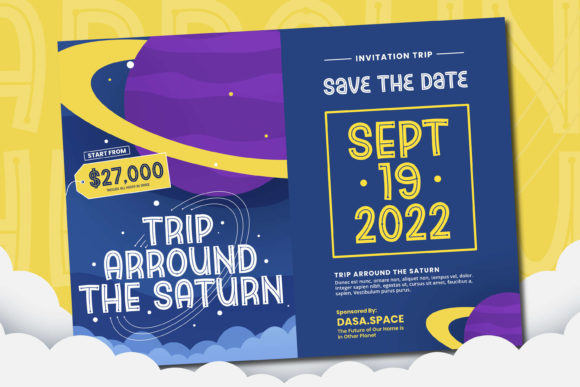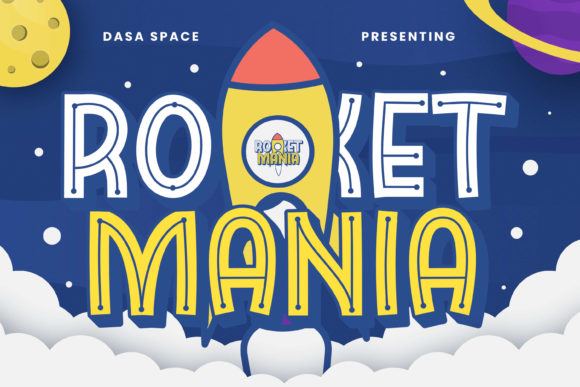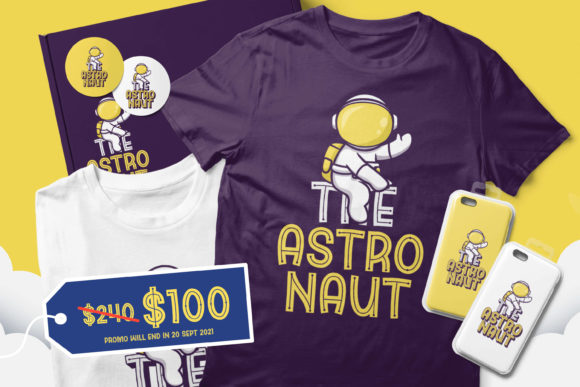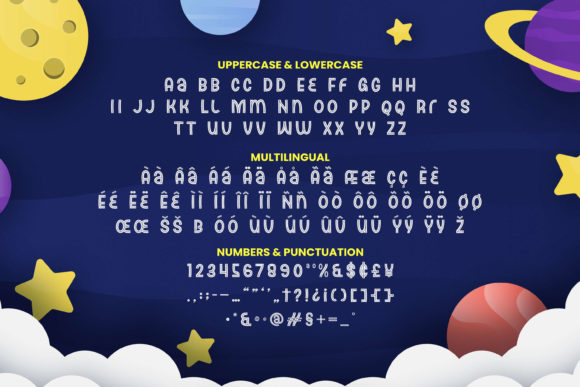
Introducing Apolo Font: The Playful and Creative Display Font for Unique Design Projects
Are you tired of using the same old fonts for your design projects? Look no further than Apolo Font, a playful and creative display font that’s perfect for adding a touch of personality to your work. Whether you’re designing a book cover, creating a game, or crafting a science-related magazine, Apolo Font is the ideal choice.
What Makes Apolo Font So Special?
Apolo Font is a unique and eye-catching display font that’s sure to make your design projects stand out. Its playful and creative vibe makes it perfect for a wide range of applications, from book covers and games to product packaging and magazines. The font’s versatility is due in part to its clean and modern design, which ensures that it looks great in a variety of contexts.
So, what types of design projects is Apolo Font perfect for? The answer is: many! Here are just a few ideas to get you started:
- Book Covers: Apolo Font is a great choice for book covers, particularly for fiction and children’s books. Its playful and creative vibe helps to capture the reader’s attention and sets the tone for the story.
- Games: If you’re designing a game, Apolo Font is a great choice for titles, headings, and other UI elements. Its modern and clean design ensures that it looks great on a variety of devices.
- Science-Related Magazines: Apolo Font is also perfect for science-related magazines, such as those focused on technology, astronomy, or biology. Its creative and playful vibe helps to make complex topics more approachable and engaging.
- Product Packaging: If you’re designing product packaging, Apolo Font is a great choice for labels, tags, and other branding elements. Its unique and eye-catching design helps to make your product stand out on store shelves.
Key Features of Apolo Font
So, what are the key features of Apolo Font that make it so special? Here are just a few:
- Playful and Creative: Apolo Font has a playful and creative vibe that’s perfect for designers who want to add a touch of personality to their work.
- Clean and Modern: Despite its playful vibe, Apolo Font has a clean and modern design that’s perfect for a wide range of applications.
- Versatile: Apolo Font is versatile and can be used for a wide range of design projects, from book covers and games to product packaging and magazines.
- Easy to Read: Despite its creative and playful design, Apolo Font is easy to read, even at smaller sizes.
Tips for Using Apolo Font in Your Design Projects
So, how can you get the most out of Apolo Font in your design projects? Here are just a few tips:
- Use it as a Header Font: Apolo Font is perfect for use as a header font, particularly for titles and headings.
- Pair it with Other Fonts: Apolo Font pairs well with a variety of other fonts, so don’t be afraid to experiment with different combinations.
- Experiment with Colors: Apolo Font looks great in a variety of colors, so don’t be afraid to experiment with different color schemes.
- Use it to Add Personality: Apolo Font is all about adding personality to your design projects, so don’t be afraid to get creative and have fun with it!
In conclusion, Apolo Font is a playful and creative display font that’s perfect for unique design projects. Its clean and modern design, versatility, and ease of use make it a great choice for designers and crafters. Whether you’re designing a book cover, creating a game, or crafting a science-related magazine, Apolo Font is the ideal choice. So why wait? Download Apolo Font today and start adding a touch of personality to your design projects!